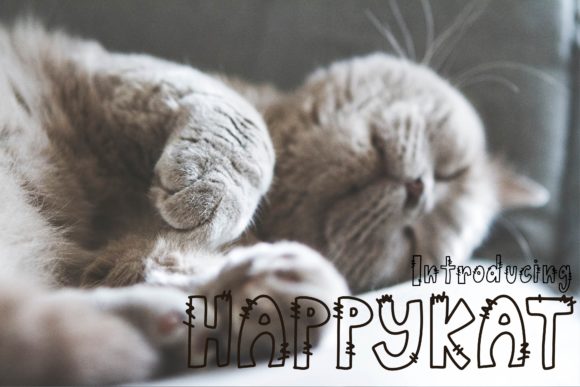
**Happykat Font: A Charming Display Font That Captures the Essence of Joy and Playfulness**
In the realm of typography, Happykat Font stands as a shining beacon of exuberance, radiating an infectious charm that captivates the hearts and imaginations of all who encounter it. This remarkable display font, crafted with meticulous attention to detail by the visionary KtwoP, embodies the very essence of happiness and playfulness, promising to transform any project it graces with an aura of pure delight.
From the moment your eyes first alight upon the Happykat Font, a symphony of positive emotions washes over you, enveloping you in a warm embrace of cheerfulness. Its playful curves and whimsical lines dance across the page like a mischievous kitten, evoking a sense of childlike wonder and unbridled joy. Whether crafting invitations for a joyful celebration, designing posters for a children's event, or simply adding a touch of whimsy to your digital creations, Happykat Font emerges as the perfect choice, effortlessly elevating your designs to new heights of visual appeal.
As you delve deeper into the world of Happykat Font, a treasure trove of possibilities awaits your discovery. This versatile gem shines brilliantly across a wide spectrum of creative endeavors, effortlessly adapting to suit your every need. Unleash your imagination as you weave enchanting stories through captivating social media posts, add a touch of whimsy to your blog, or craft eye-catching headlines that demand attention. With Happykat Font as your creative companion, the boundaries of your imagination dissolve, making way for a world brimming with endless possibilities.
The Happykat Font stands as a testament to the transformative power of typography, reminding us that words possess the ability to transport us to realms of pure delight and unrestrained imagination. Its mere presence has the power to evoke smiles, uplift spirits, and ignite a spark of creativity within the hearts of all who behold it. Embrace the Happykat Font today and embark on a typographic adventure where joy reigns supreme, and the possibilities are limited only by the boundless reaches of your imagination.
**Unleash the Happykat Font and Transform Your Designs into a Symphony of Joy and Exuberance**